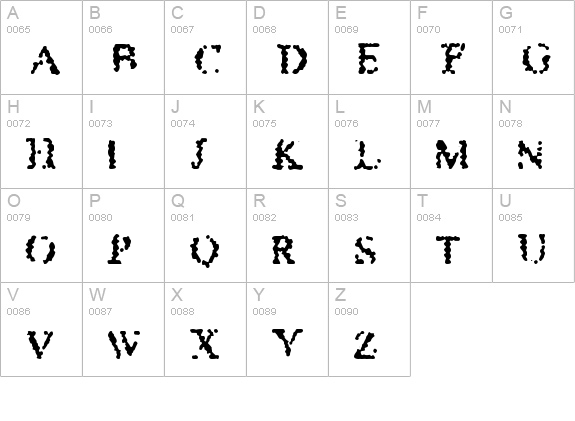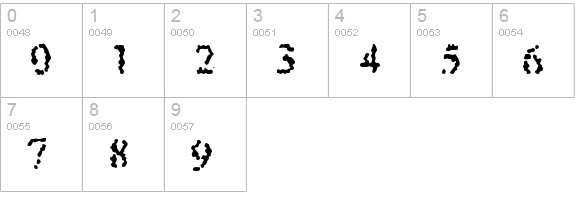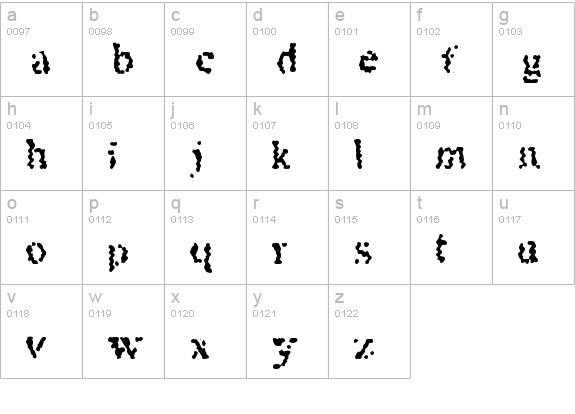
Honeybomb Font Details
Below you can preview Honeybomb in uppercase [A-Z], lowercase [a-z] and numbers [0-9]. You can also read the author's notes and license information before downloading.
Introducing Honeybomb font, a playful and whimsical typeface that exudes a sense of sweetness and charm. This delightful font features rounded edges and a unique hand-drawn style that is perfect for a variety of design projects. Whether you're creating greeting cards, invitations, posters, or branding materials, Honeybomb will add a touch of fun and personality to your creations. The best part? Honeybomb font is completely free to download at FontsMarket.com. With its cheerful aesthetic and easy-to-read letterforms, this font is sure to become a favorite in your font collection. Don't miss out on the opportunity to add a dash of honeyed charm to your designs with Honeybomb font today!